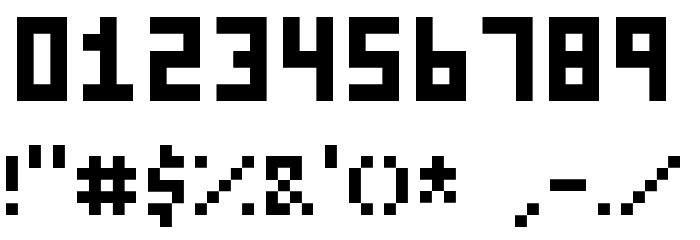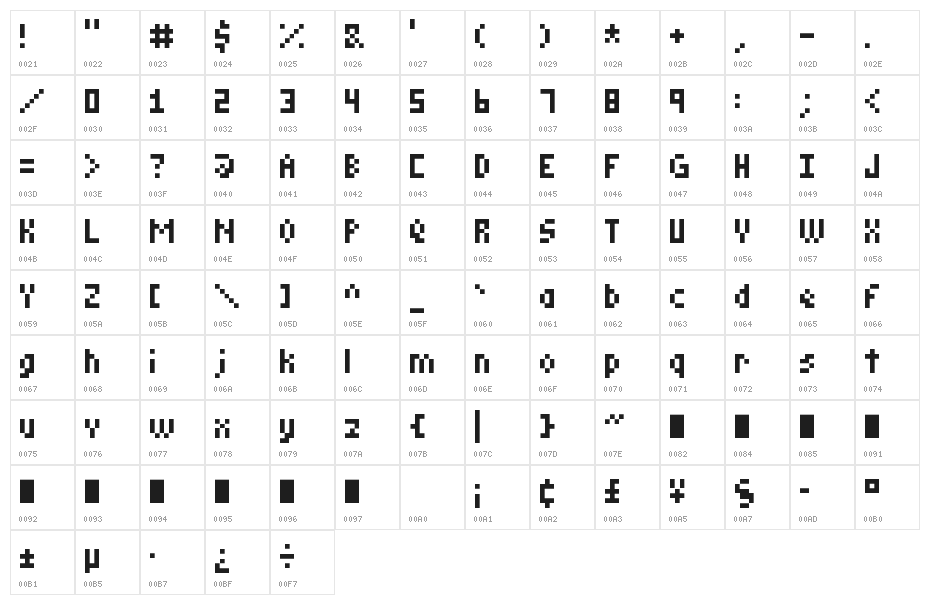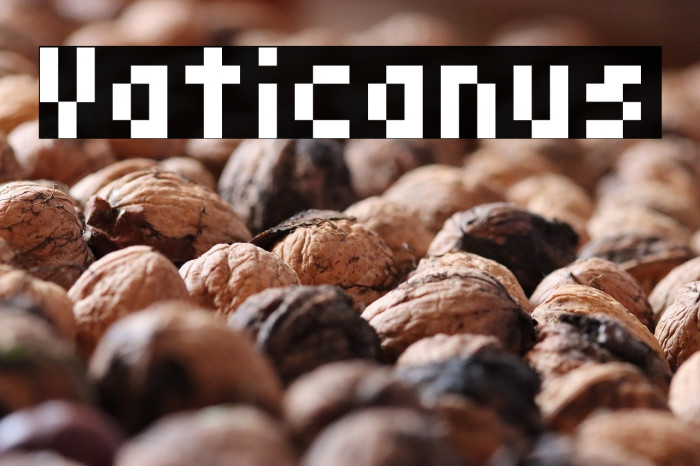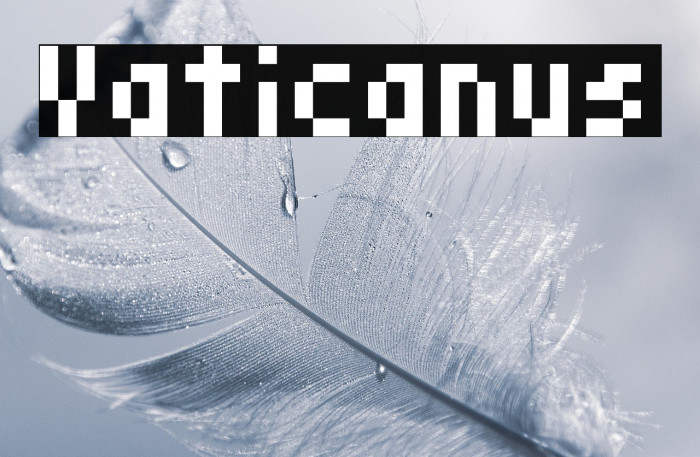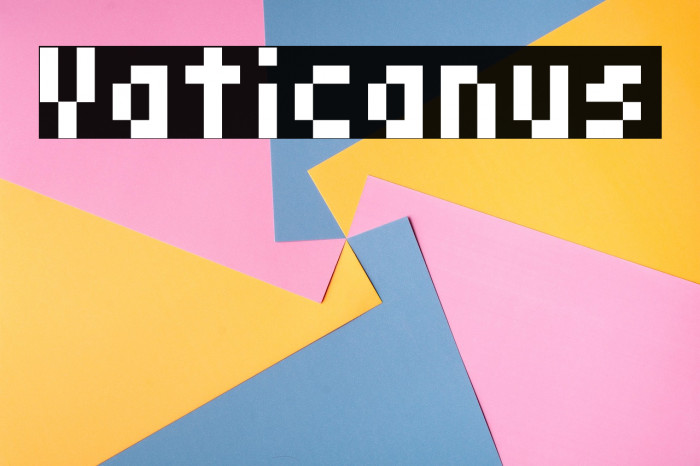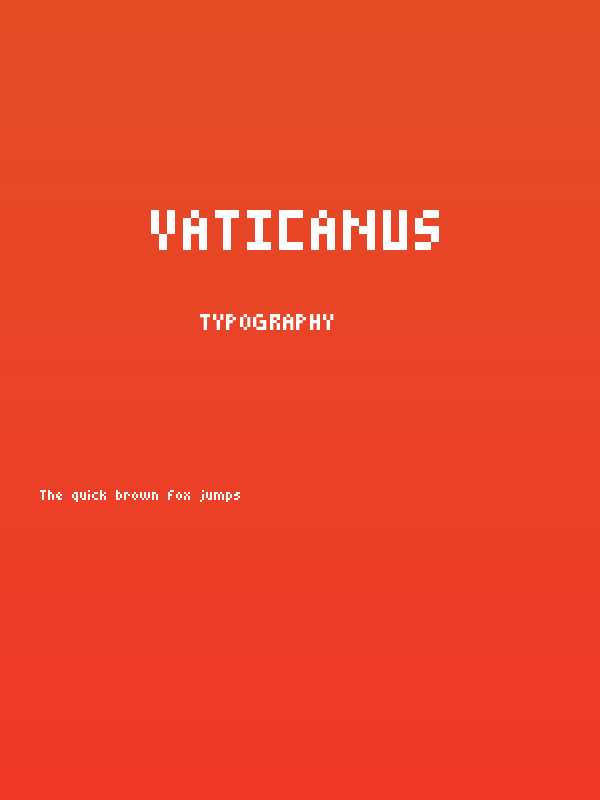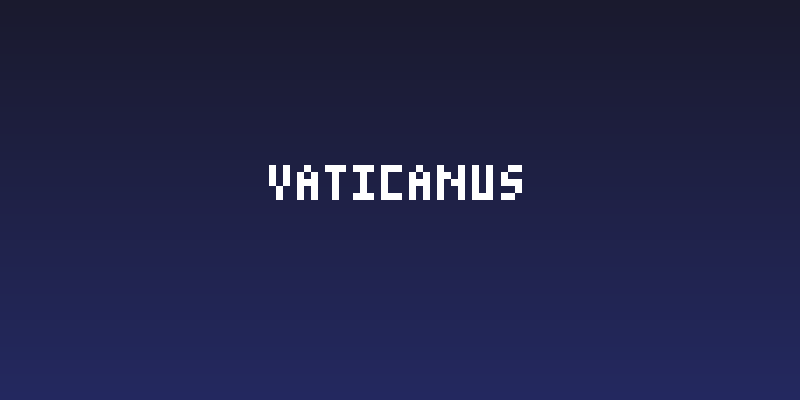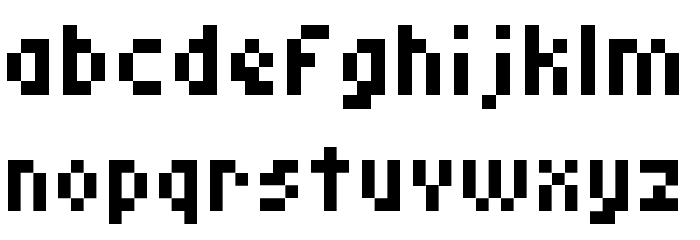
Vaticanus Font
Vaticanus Description
This font features a bold, pixelated design reminiscent of early digital displays and retro video games. Each character is composed of square blocks, giving it a distinctly geometric and grid-like appearance. The uppercase and lowercase letters maintain a consistent height, with the lowercase being slightly smaller but still retaining the blocky style. Numbers and special characters follow the same pixelated pattern, ensuring uniformity across all glyphs. The font's simplicity and clarity make it highly legible, even at smaller sizes, while its unique style adds a nostalgic and playful touch.
| Use Case | Headlines, Logos, Digital Art |
| Proposed Projects | Ideal for retro-themed designs, video game graphics, digital art projects, and any creative work that seeks a nostalgic or playful vibe. |